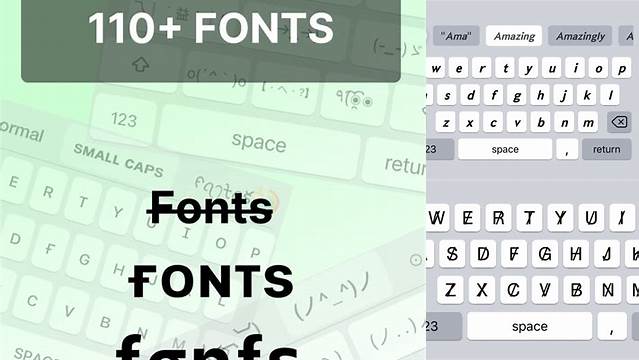
IPhone Fonts: How To Change & Customize Your Keyboard
Hey guys! Ever wondered how to spice up your iPhone’s look and feel? Well, you've come to the right place! In this comprehensive guide, we're diving deep into the world of fonts for iPhones and keyboards. We'll explore everything from the default options to third-party apps, custom fonts, and even how to change the keyboard font itself. Whether you're looking to improve readability, add a personal touch, or simply experiment with new styles, this article will provide you with all the tips and tricks you need. So, buckle up and let’s get started on this font-astic journey!
Why Change Your iPhone Font?
Let's kick things off by understanding why you might even want to change the font on your iPhone in the first place. The default font, while perfectly functional, might not always be the most exciting or accessible option for everyone. For starters, personal preference plays a huge role. Maybe you're just tired of seeing the same font day in and day out and crave something fresh and new. A different font can inject some personality into your device, making it feel more like your own. Beyond aesthetics, font changes can also significantly improve readability. If you have visual impairments or simply find the default font straining to read, switching to a larger or more distinct font can make a world of difference. This is especially crucial for those who spend long hours reading on their iPhones, whether it’s emails, articles, or e-books. By choosing a font that’s easy on the eyes, you can reduce eye strain and enhance your overall reading experience. Furthermore, changing fonts can also be a way to differentiate yourself. In a world where everyone has the same iPhone, customizing your device’s font is a subtle but effective way to stand out from the crowd. It’s a simple tweak that can reflect your individual style and make your phone feel truly unique. Plus, let’s be honest, it’s just plain fun to experiment with different fonts and see how they transform your iPhone’s interface. So, whether it’s for aesthetic reasons, readability improvements, or simply the joy of customization, changing your iPhone font opens up a world of possibilities.
Default Font Options on iPhone
Now, let's talk about the built-in font options that Apple provides on your iPhone. While the customization isn't as extensive as on some other platforms, there are still several ways you can tweak the font settings to better suit your needs. By default, iPhones use the San Francisco font family, a sleek and modern typeface designed specifically for Apple devices. This font is known for its excellent readability and clean lines, making it a solid choice for most users. However, if you're looking for a change, the first place to start is in your iPhone's settings. Head over to the "Display & Brightness" section, and you'll find options to adjust the text size. This is a simple but effective way to make the text larger and easier to read, especially for those with visual impairments. You can use the slider to increase or decrease the text size according to your preference, and a preview at the top of the screen shows you how the changes will look in real-time. For more advanced options, delve into the "Accessibility" settings. Here, you'll find features like "Bold Text," which makes all the text on your iPhone bolder and more prominent. This can be a game-changer for readability, as the bolder text stands out more clearly against the background. Another helpful feature is "Larger Text," which allows you to increase the text size even beyond the limits set in the Display & Brightness settings. This is particularly useful for users who need significantly larger text to comfortably use their iPhones. While these default options don't allow you to change the actual font style, they offer valuable ways to adjust the text size and boldness, ensuring your iPhone's display is as comfortable and readable as possible.
Third-Party Apps for Font Customization
Okay, so the default font options on iPhone are a good starting point, but what if you're craving something more… unique? That’s where third-party apps come into play! The App Store is brimming with apps designed to help you customize your iPhone’s fonts, giving you a much wider range of styles to choose from. These apps work in various ways, but the most common method involves installing custom keyboards that include different font styles. Once you've installed a font app, you can typically switch to its keyboard within any app that uses text input, such as messaging apps, email clients, and social media platforms. This means you can use fancy, stylized fonts in your messages, posts, and even your notes! One popular category of font apps focuses on providing decorative and artistic fonts. These fonts are perfect for adding flair to your social media bios, creating eye-catching captions, or just making your messages stand out. Think fonts with swirls, serifs, or even handwritten styles – the possibilities are endless! However, it's important to note that the recipient of your message will also need to have a compatible font installed to see the custom font correctly. If they don't, they'll likely see a default font instead. Another type of font app focuses on improving readability. These apps often offer fonts that are specifically designed to be easy on the eyes, with clear and distinct letterforms. If you struggle with reading small text or experience eye strain, these apps can be a lifesaver. When choosing a font app, it's crucial to consider factors like the variety of fonts offered, the ease of use, and the app’s reputation. Read reviews and check ratings to ensure you're downloading a reliable and well-designed app. And, of course, be mindful of privacy – some font apps may request access to your keyboard input, so it’s important to choose apps from trusted developers. With the right third-party app, you can transform your iPhone’s look and feel, adding a touch of personality and making your device truly your own.
How to Change Keyboard Font on iPhone
Now, let's get down to the nitty-gritty of changing the keyboard font on your iPhone. While Apple doesn’t offer a direct way to change the system-wide keyboard font, there are still some clever workarounds and methods you can use to achieve this. As we touched on earlier, one of the most common approaches involves using third-party keyboard apps. These apps often come with a variety of fonts built-in, allowing you to switch between different styles directly from the keyboard. To get started, you’ll need to download and install a keyboard app from the App Store. There are tons of options available, so take some time to explore and find one that suits your needs and preferences. Once you've installed the app, you'll need to enable it in your iPhone's settings. Go to "Settings" > "General" > "Keyboard" > "Keyboards" and tap "Add New Keyboard." Select the keyboard app you just installed from the list. You may also need to grant the app full access, which allows it to access additional features. However, keep in mind that granting full access means the app can potentially record everything you type, so it's crucial to choose a reputable and trustworthy app. After enabling the keyboard, you can switch to it by tapping the globe icon in the bottom-left corner of the keyboard in any app. This will cycle through your installed keyboards, allowing you to select the one you want to use. Once you've switched to the custom keyboard, you should see options to change the font directly within the keyboard app's interface. This usually involves tapping a font selection button or accessing a settings menu within the keyboard. It’s worth noting that some keyboard apps may offer additional customization options, such as changing the keyboard’s theme, size, and layout. This can be a fantastic way to personalize your iPhone’s keyboard and make it truly your own. While using third-party keyboard apps is the primary method for changing the keyboard font, it’s essential to be mindful of security and privacy. Always choose apps from trusted developers and be cautious about granting full access permissions. With the right app, you can enjoy a personalized keyboard experience that reflects your style and preferences.
Creating Custom Fonts for Your iPhone
Feeling adventurous? How about creating your own custom fonts for your iPhone? While this might sound like a daunting task, it’s actually quite achievable with the right tools and a little bit of creativity. There are several apps and software programs available that allow you to design your own fonts from scratch, giving you complete control over every aspect of the typeface. This can be a fantastic way to express your unique style and create fonts that are truly one-of-a-kind. One approach is to use font design software on your computer, such as FontLab Studio, Glyphs, or BirdFont. These programs offer a wide range of features and tools for creating professional-quality fonts. You can draw each letterform individually, adjust spacing and kerning, and even add advanced features like ligatures and alternate characters. Once you’ve created your font, you’ll need to convert it to a format that’s compatible with iOS, such as .ttf or .otf. There are also apps available for iPad that allow you to design fonts directly on your tablet. These apps often offer a more intuitive and tactile experience, as you can use your finger or a stylus to draw the letterforms. Some popular iPad font design apps include iFontMaker and FontForge. Creating a custom font can be a time-consuming process, but it’s also incredibly rewarding. It allows you to unleash your creativity and design a typeface that perfectly reflects your personality and style. Plus, you’ll have the satisfaction of knowing that you’ve created something truly unique. Once you’ve created your custom font, you can install it on your iPhone using a font management app or a configuration profile. This will allow you to use your custom font in various apps, such as Pages, Keynote, and other text editors. While creating custom fonts might not be for everyone, it’s a fantastic option for those who are passionate about typography and want to take their iPhone customization to the next level. So, if you’re feeling creative, why not give it a try and see what font masterpieces you can create?
Choosing the right font can make a world of difference in how you experience your iPhone. The perfect font can enhance readability, add personality, and even improve your overall mood while using your device. But with so many fonts to choose from, how do you know which one is right for you? Let's dive into some tips to help you select the ideal typeface. First and foremost, consider readability. A font might look beautiful, but if it's difficult to read, it's not a practical choice for everyday use. Look for fonts with clear and distinct letterforms, adequate spacing, and a consistent weight. Avoid fonts that are overly decorative or stylized, as these can often be challenging to read, especially in large blocks of text. Think about the purpose of the font. Are you primarily using it for reading long articles or emails? Or are you looking for a font to add flair to your social media posts? For reading, prioritize fonts that are designed for legibility, such as sans-serif fonts like Helvetica or Arial, or serif fonts like Times New Roman or Georgia. For more creative purposes, you can explore a wider range of fonts, including script fonts, display fonts, and novelty fonts. Don't be afraid to experiment with different fonts. Try out a few different options and see how they look on your iPhone. You can use font preview apps or websites to get a sense of how a font will look before you install it. Pay attention to how the font looks at different sizes and in different contexts. Does it look good in headlines? How about in body text? Consider your personal style and preferences. Your font choice should reflect your personality and taste. Do you prefer a classic and elegant look? Or something more modern and edgy? Choose fonts that you enjoy looking at and that make you feel good when you use your iPhone. Finally, think about consistency. It's generally a good idea to stick to a limited number of fonts on your iPhone to maintain a consistent look and feel. Using too many different fonts can make your device look cluttered and unprofessional. By following these tips, you can choose fonts that not only look great but also enhance your overall iPhone experience. Happy font hunting!
So, there you have it, guys! We’ve explored the fascinating world of fonts for iPhones and keyboards, from the default options to third-party apps, custom creations, and tips for choosing the perfect typeface. Customizing your iPhone’s font is a fantastic way to personalize your device and make it truly your own. Whether you’re looking to improve readability, add a touch of style, or simply experiment with new looks, the possibilities are endless. Remember, the right font can make a world of difference in how you experience your iPhone, so don’t be afraid to explore and find the perfect fit for your needs and preferences. From tweaking the default settings to diving into the world of custom fonts, there’s a font solution out there for everyone. So go ahead, get creative, and let your personality shine through your iPhone’s typography! We hope this guide has equipped you with the knowledge and inspiration to embark on your font-astic journey. Happy customizing!